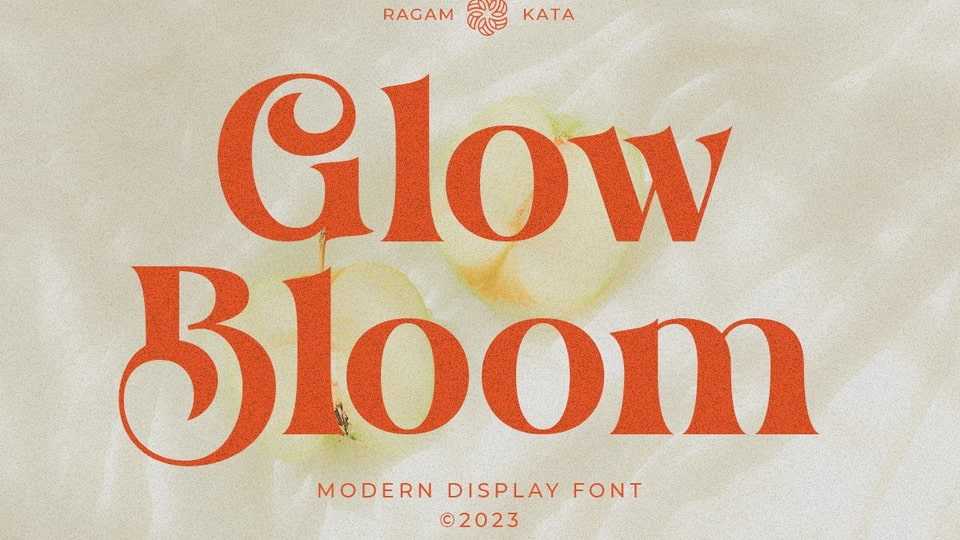
Download Glow Bloom font, a modern and elegant serif typeface, perfect for an elegant and luxury logo, classy editorial design, women’s magazine, fashion brand